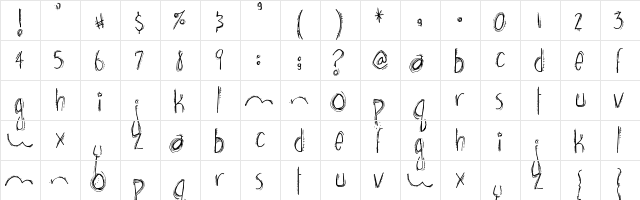
brown bear funk Regular Font Preview
brown bear funk Regular
brown bear funk Regular Font Details
Design Context for brown bear funk Typeface
brown bear funk trades formality for fun, with bouncy, characterful letterforms that bring warmth and energy to any project.
Font Pairing: Pairs well with a rounded or humanist sans for body copy, maintaining the friendly tone without relying on brown bear funk to carry extended reading.
Pro Tip: Avoid using brown bear funk for long passages of text — it works best for headlines, labels, and short calls to action.